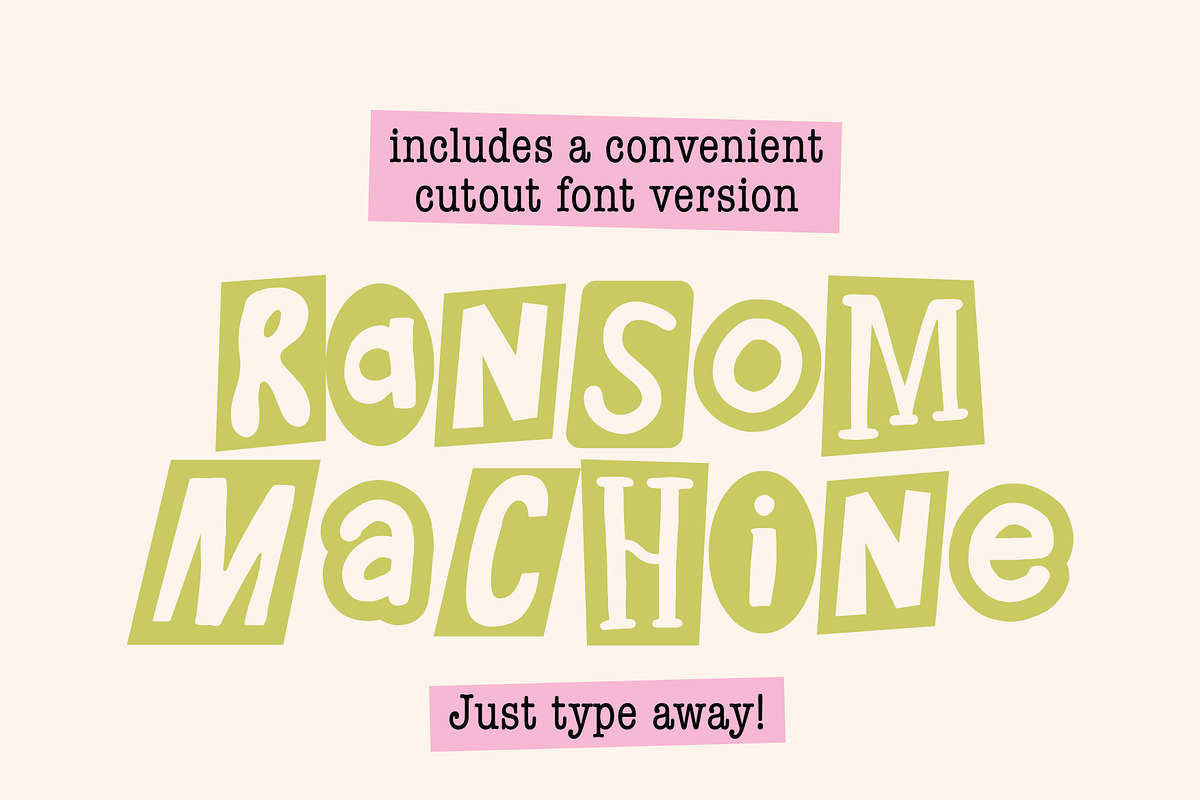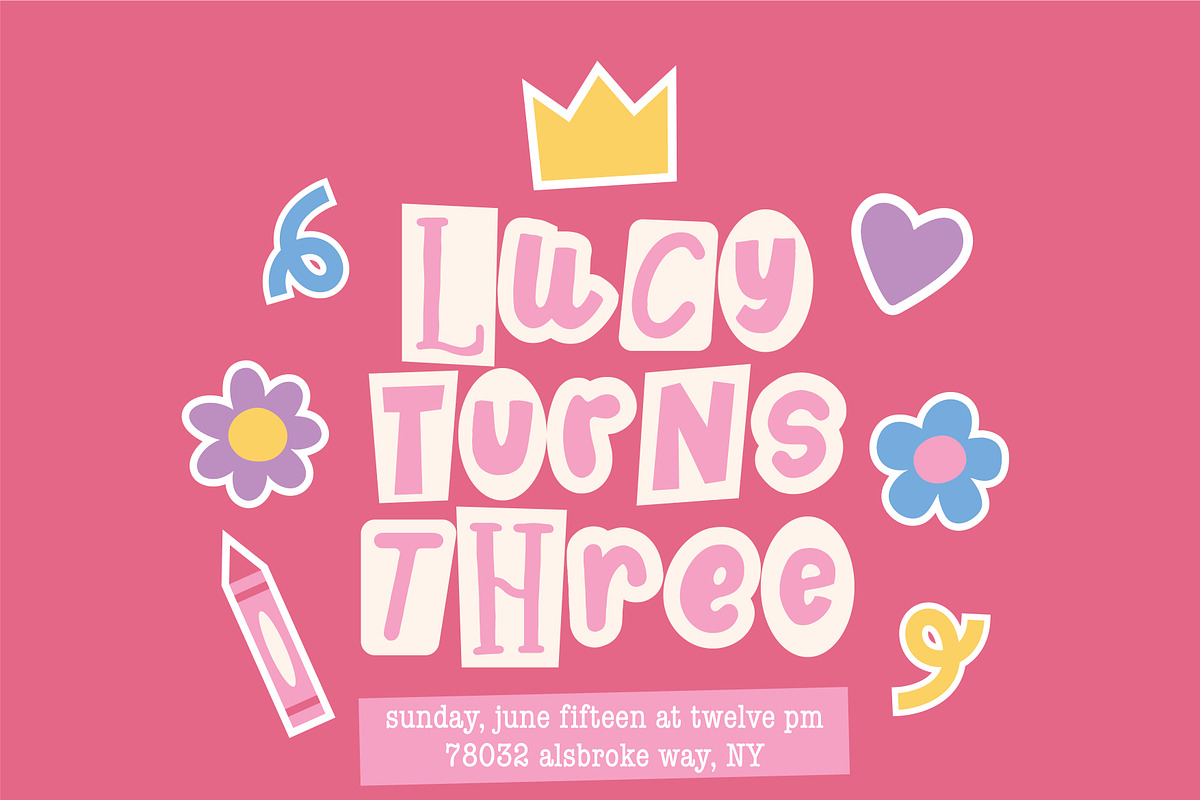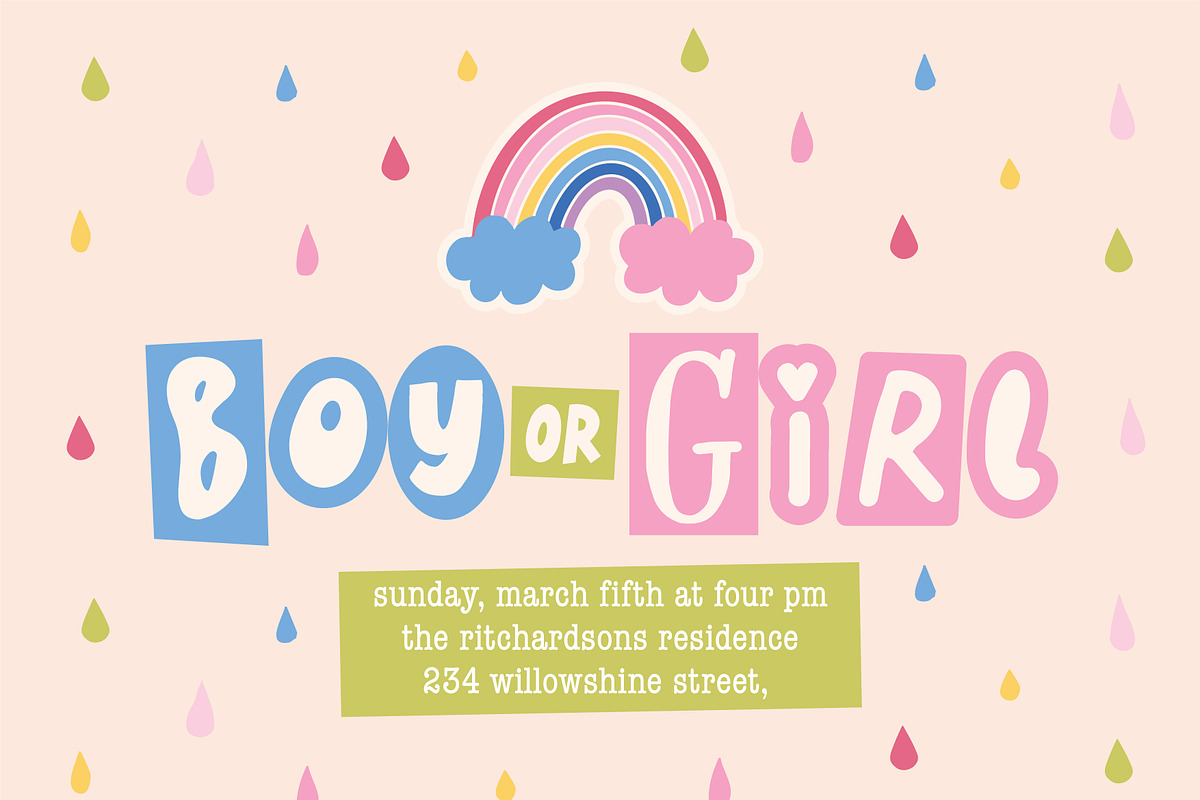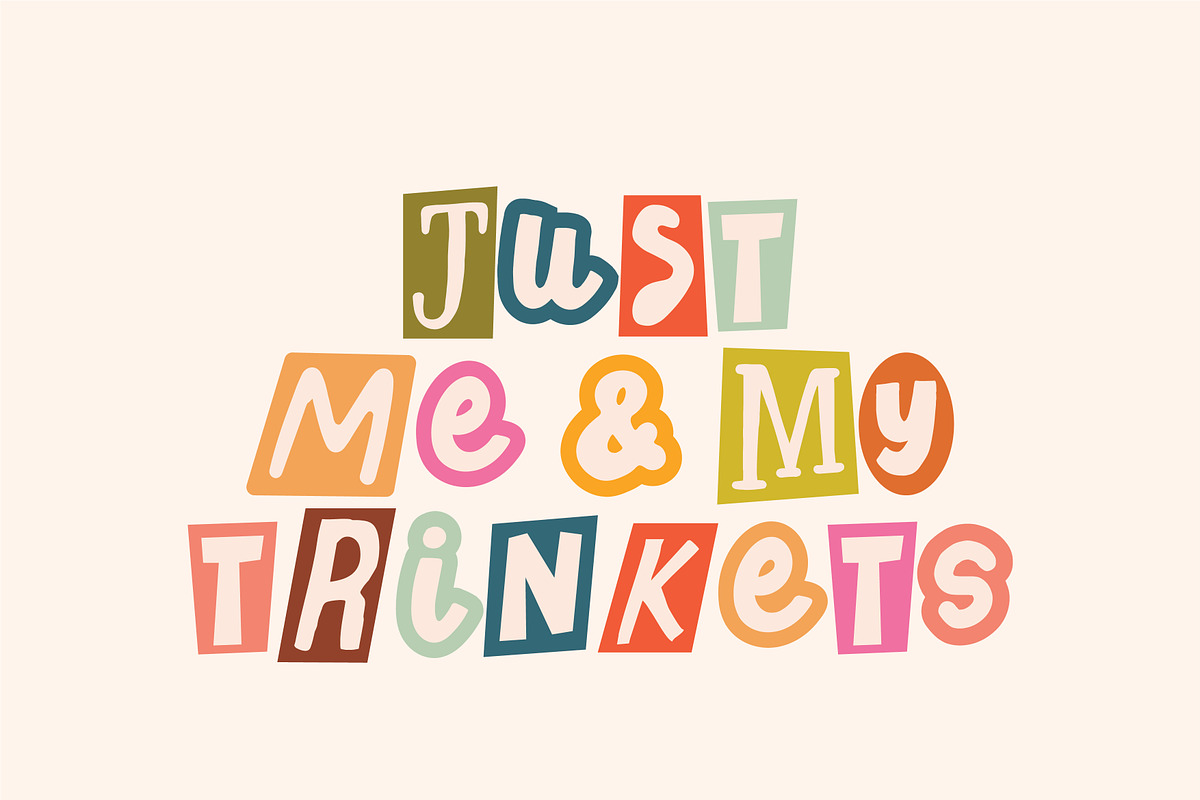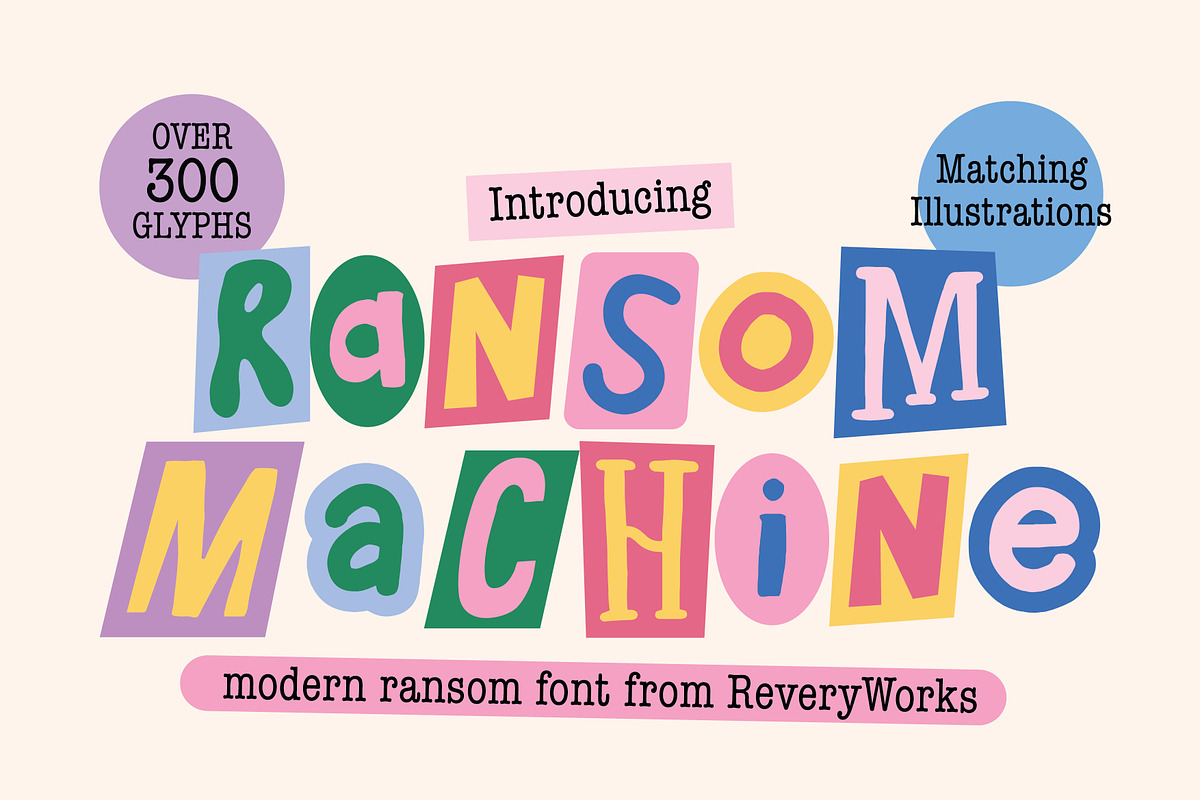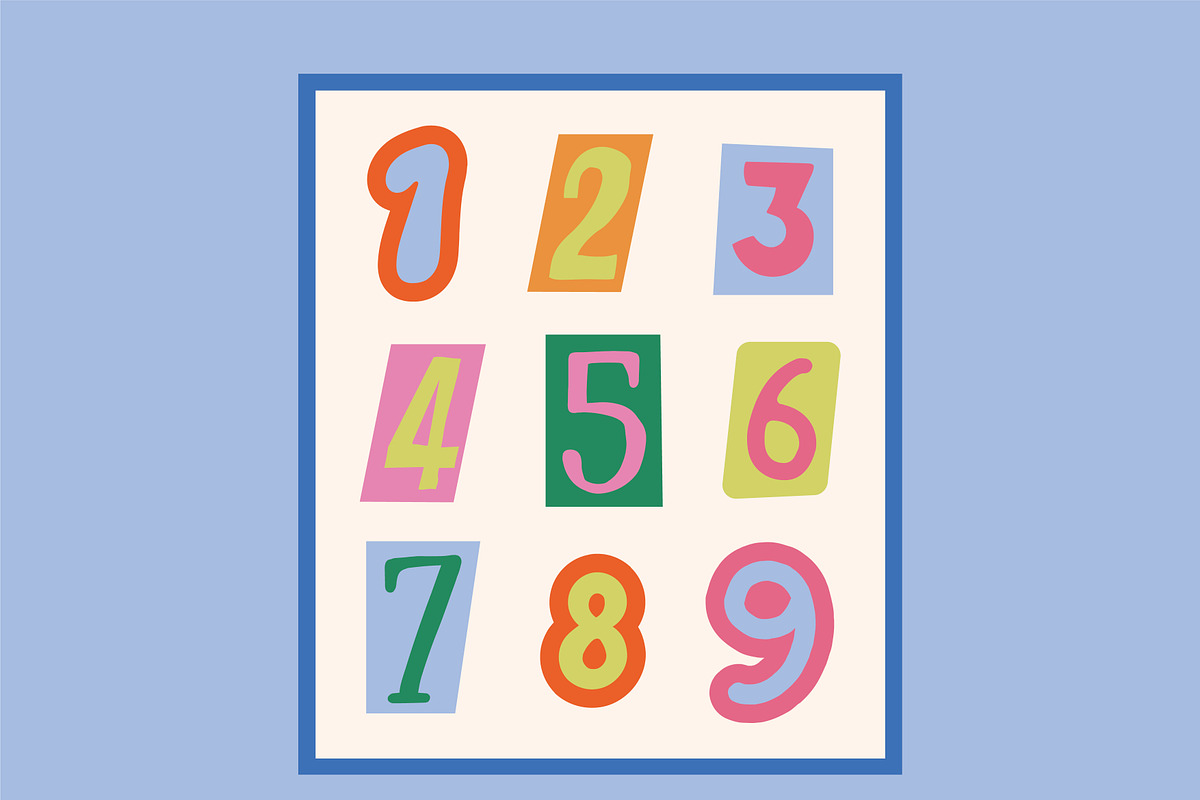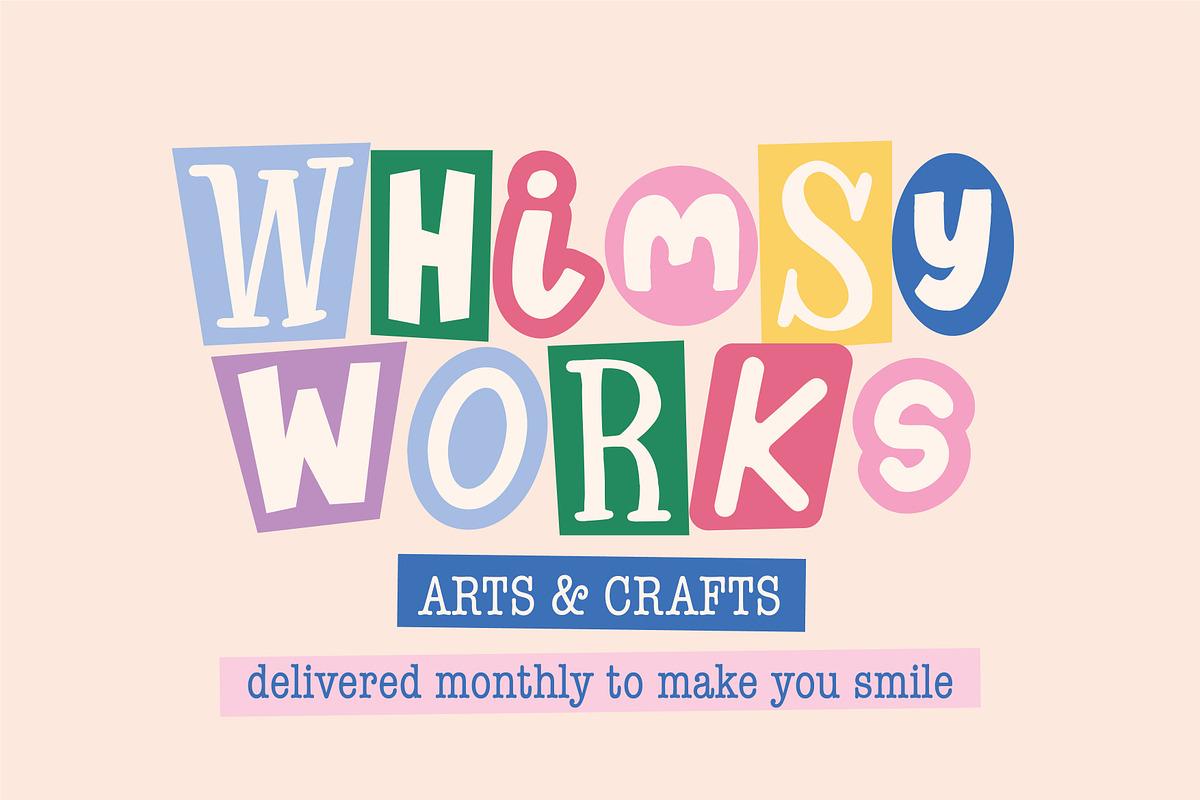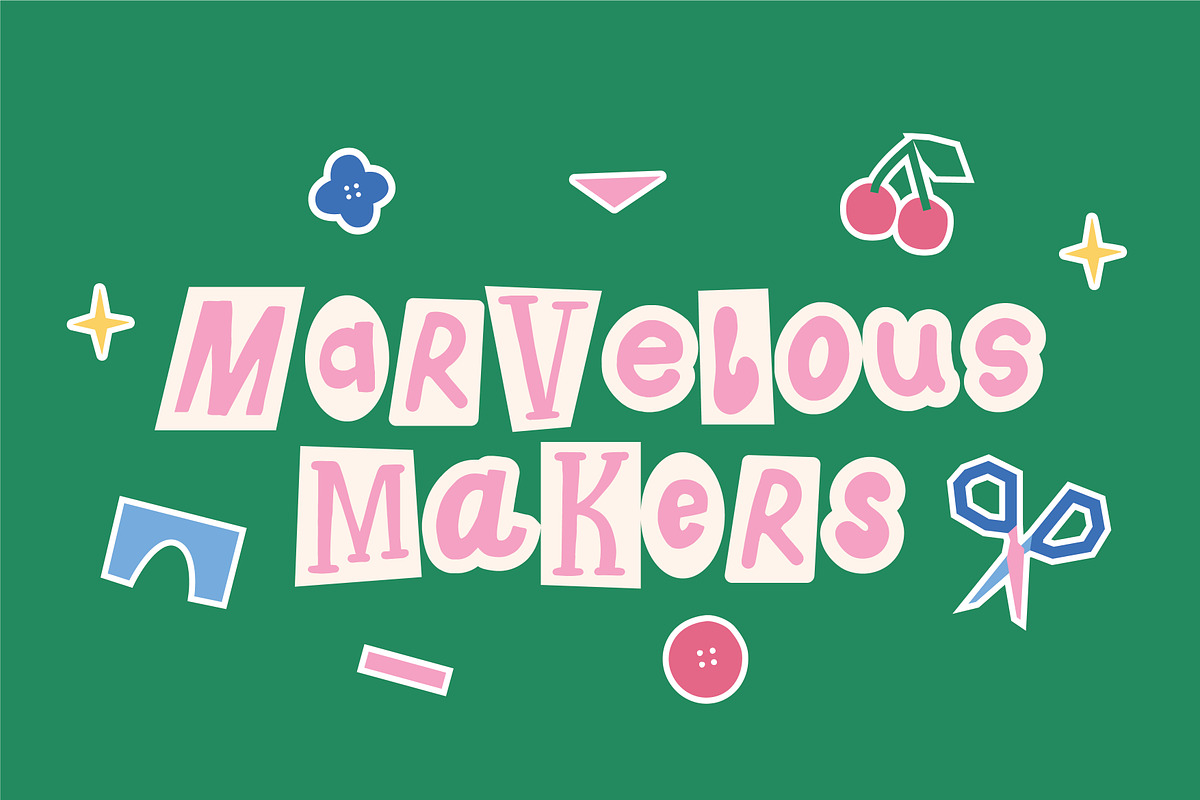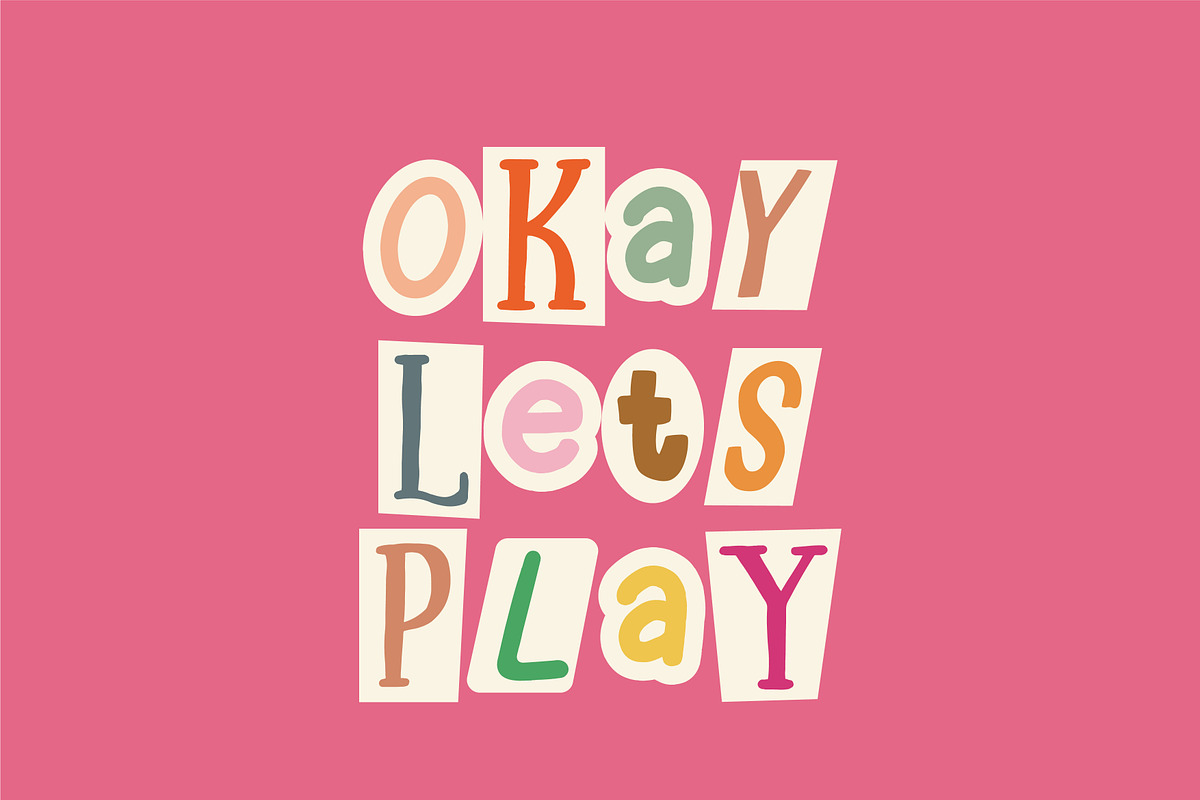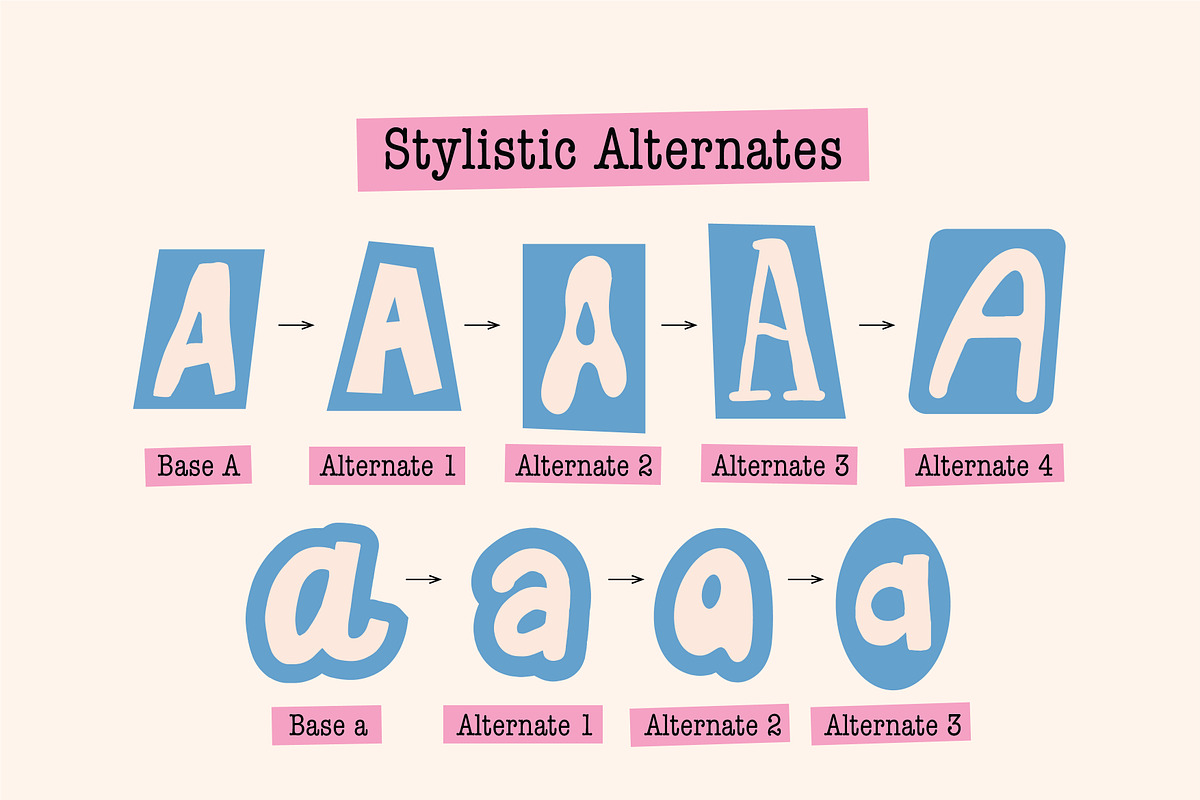
Ransom Machine
It's a Ransom Machine for a reason! 1 font = limitless possibilities!
This font inspired by ransom notes, but of course make it cute! The font consist of two layers: Regular and Box. Use them together to instantly box up the letters. OR Use the cutout version to just start typing away!
Each character has **3-4 stylistic alternates **to navigate between and achieve your desired look. You will need Opentype capable software to access this feature.
Pro Tip: Type out your font using the "Box" font style first to create your base layout. Then duplicate the layer and change the top layer to "Regular" :)
Pairs really well with the included paper-cut illustrations :)